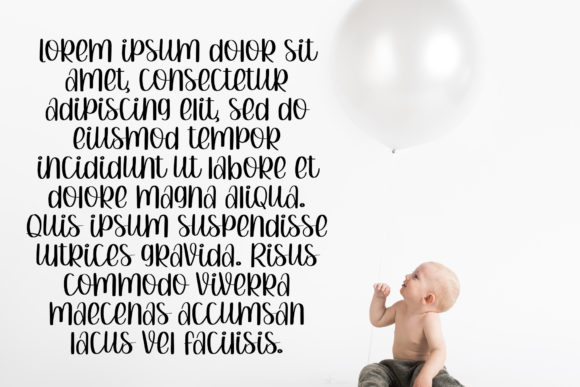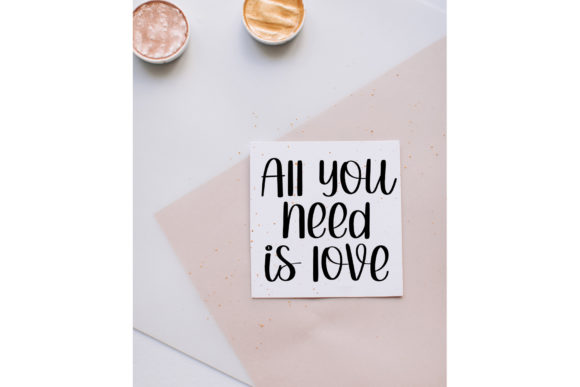
Rainbow Butterfly Font
db-ku.com - Script & Handwritten -- Rainbow Butterfly is a unique and elegant script font. Fall in love with its incredibly versatile style and use it to create spectacular designs!